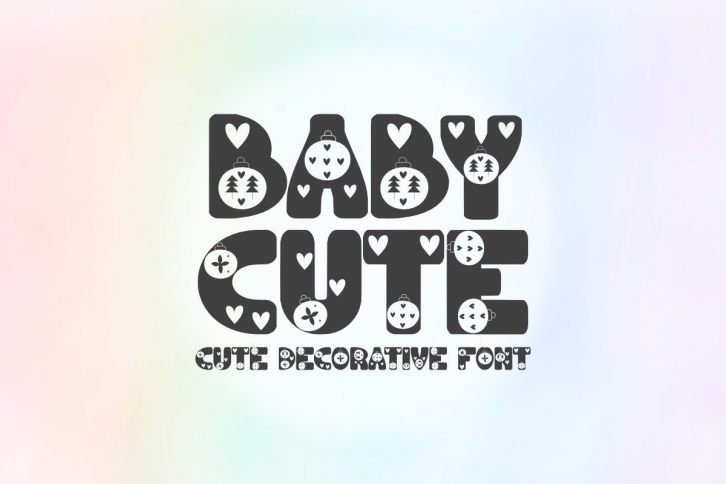
Babycute is an adorable cute font. decorative fonts specially designed for printing products such as t-shirts, baby supplies, children’s t-shirts, stickers, cricuts, posters, food labels and many other ideas